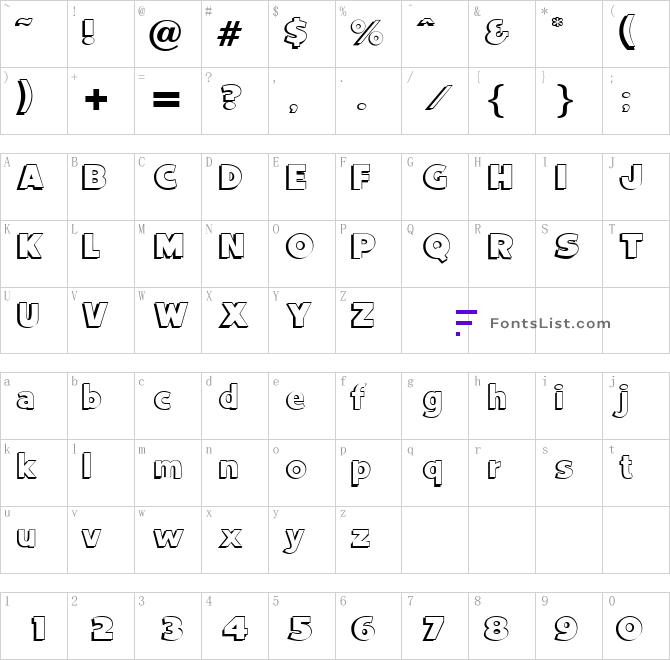
- Font Name:Camden DB
Camden-Regular-DB.ttf is a very beautiful artistic font, Camden-Regular-DB.ttf is widely used in the design and printing of various books and pictures,Camden-Regular-DB.ttf has a strong visual impact,Camden-Regular-DB.ttf is a commonly used font in newspapers, magazines and books, and is used in posters, e-commerce Poster design, store design, logo design, font design and other fields.Camden-Regular-DB.